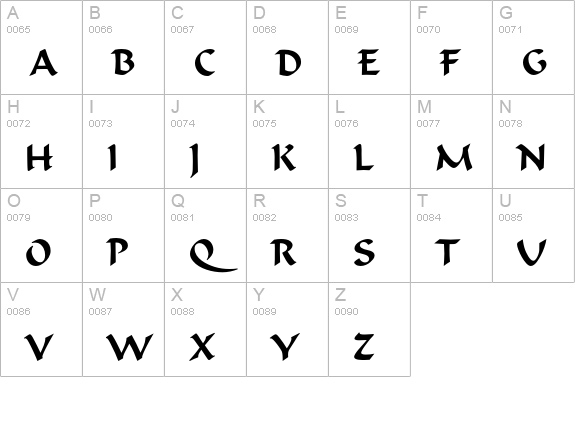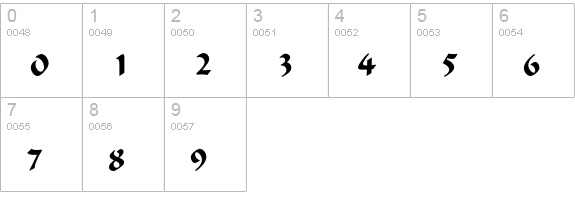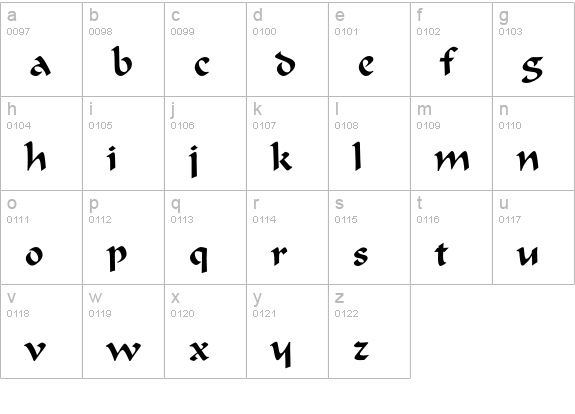
Ondine-Normal Font Details
Ondine-Normal is the standard, neutral variant in the Ondine typeface family \xE2\x80\x94 well suited to general body text, paragraphs, and standard typographic work.